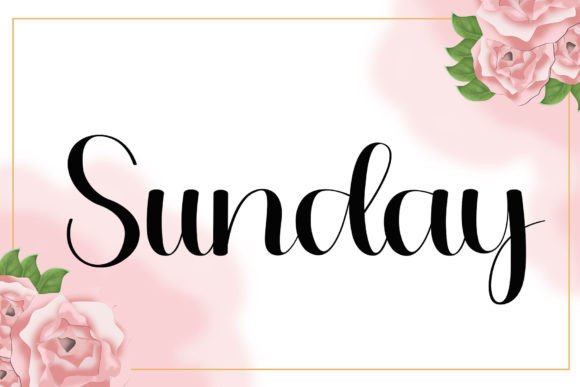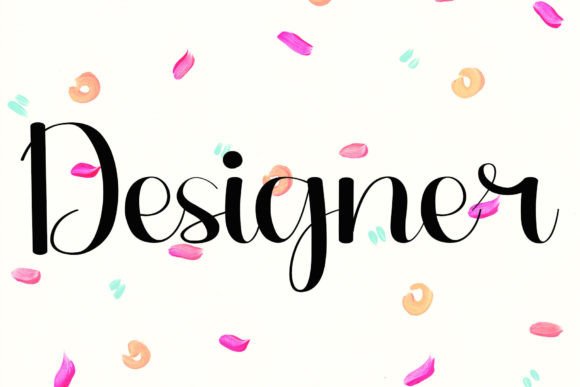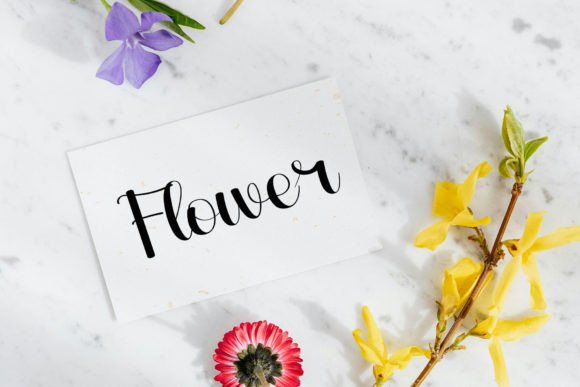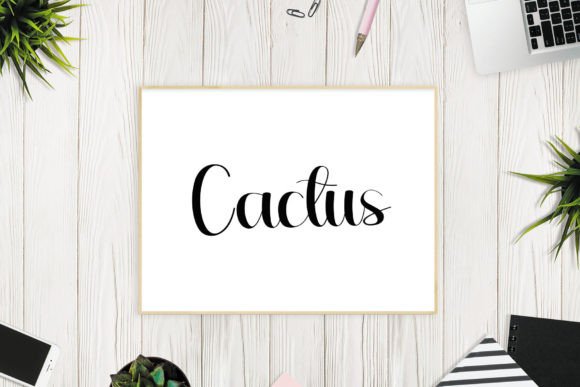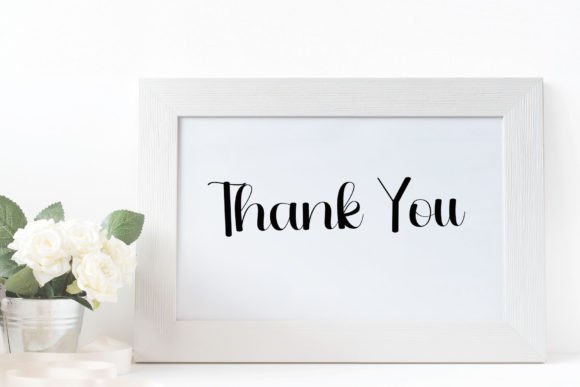
Duck Font: Elevate Your Designs with Timeless Elegance
Are you on the hunt for a font that exudes sophistication and style? Look no further than Duck Font, a trendy handwritten font that brings a contemporary atmosphere to your design projects. Inspired by timeless classic calligraphy, Duck Font is the perfect addition to any designer’s arsenal.
The Inspiration Behind Duck Font
Duck Font draws its inspiration from the world of classic calligraphy, where the art of beautiful handwriting is revered. With its impeccable form and elegant strokes, this font is a masterful blend of traditional and modern design elements. The result is a font that is both refined and trendy, perfect for designers who want to add a touch of sophistication to their work.
What Makes Duck Font So Special?
So, what sets Duck Font apart from other fonts on the market? Here are just a few reasons why designers and crafters are falling in love with this beautiful font:
- Contemporary atmosphere: Duck Font has a modern feel that makes it perfect for designers who want to create fresh and trendy designs.
- Elegant and classy: With its classic calligraphy inspiration, Duck Font adds a touch of elegance and sophistication to any design project.
- Impeccable form: The font’s precise and meticulous design ensures that it looks great in any context, from digital designs to print materials.
- Versatile: Whether you’re working on a logo, branding project, or social media graphics, Duck Font is the perfect choice.
How to Use Duck Font in Your Designs
Ready to incorporate Duck Font into your design projects? Here are a few ideas to get you started:
- Logos and branding: Use Duck Font to create a sophisticated and memorable logo that will help your brand stand out.
- Social media graphics: Add a touch of elegance to your social media graphics, from Facebook posts to Instagram stories.
- Wedding and event design: Duck Font is perfect for creating beautiful wedding invitations, programs, and other event materials.
- Packaging design: Use Duck Font to add a touch of sophistication to your product packaging and make it stand out on store shelves.
Tips for Pairing Duck Font with Other Design Elements
To get the most out of Duck Font, it’s essential to pair it with other design elements that complement its elegant style. Here are a few tips to keep in mind:
- Neutral backgrounds: Pair Duck Font with a neutral background to let the font take center stage.
- Simple graphics: Use simple graphics and illustrations to add visual interest to your design without overpowering the font.
- Rich colors: Experiment with rich, bold colors to add depth and contrast to your design.